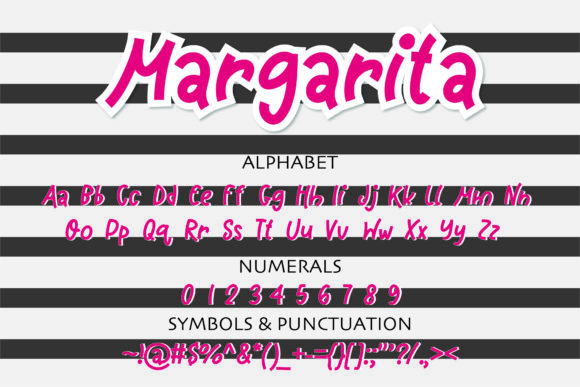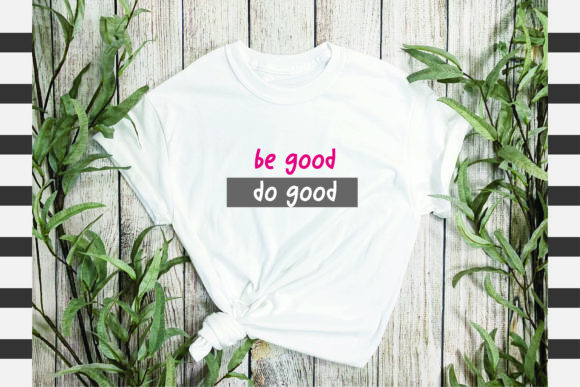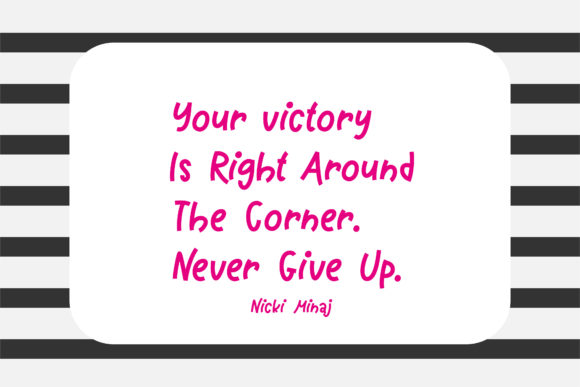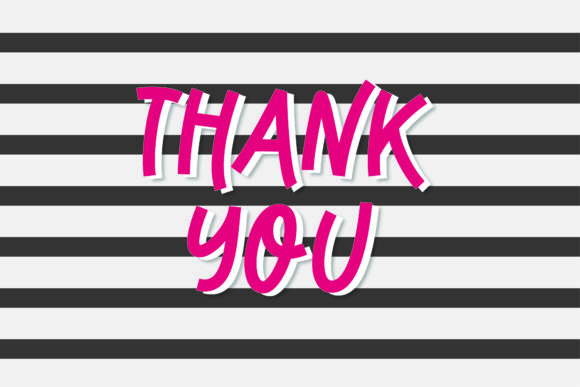
Margarita Font
About Margarita Font
Margarita is a lovely handwritten font. Get creative with its bouncy, charming style and add it to each of your inspired ideas. It looks stunning on wedding invitations, thank you cards, quotes, greeting cards, logos, business cards, and every other design which needs a handwritten touch.